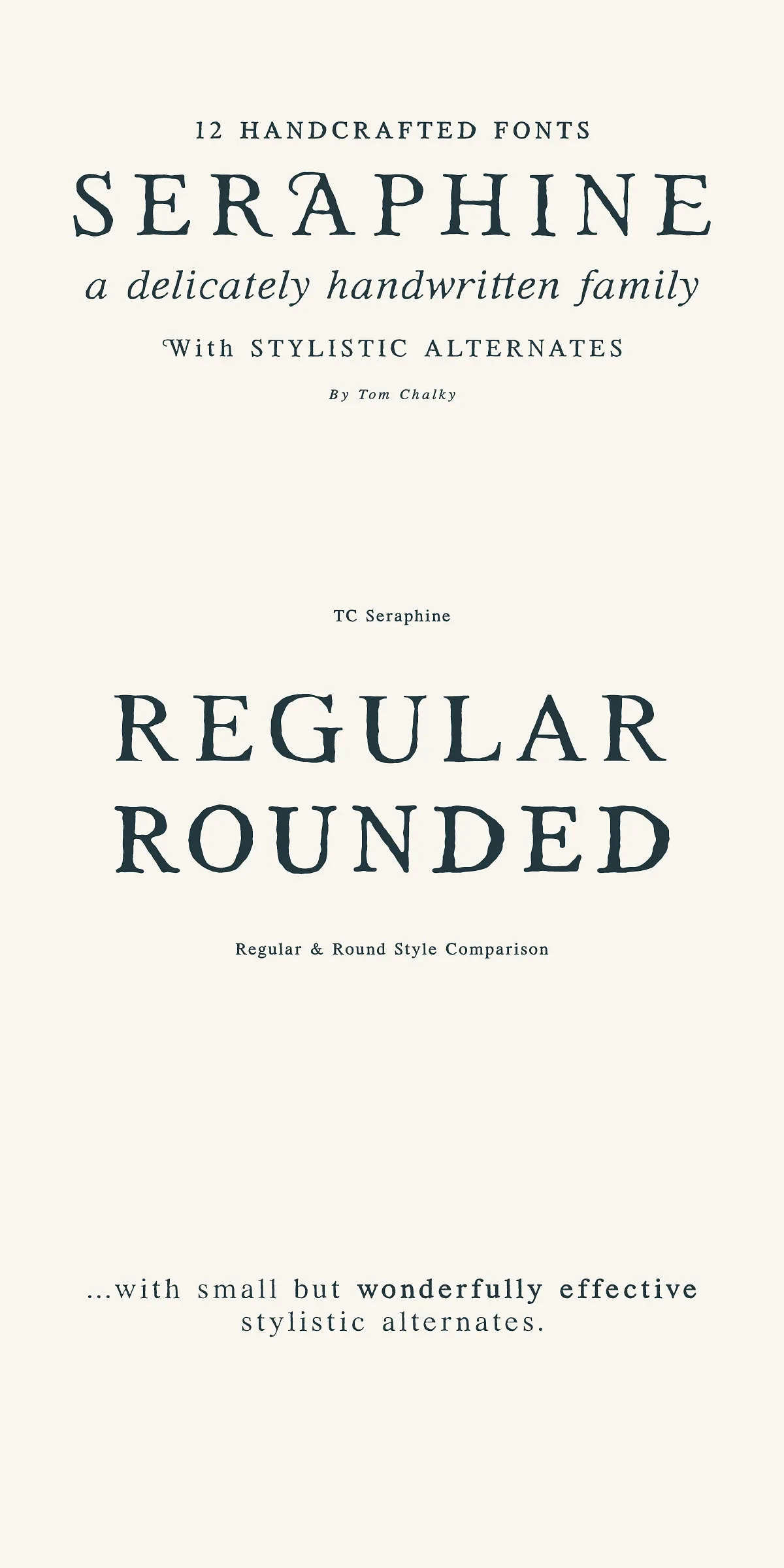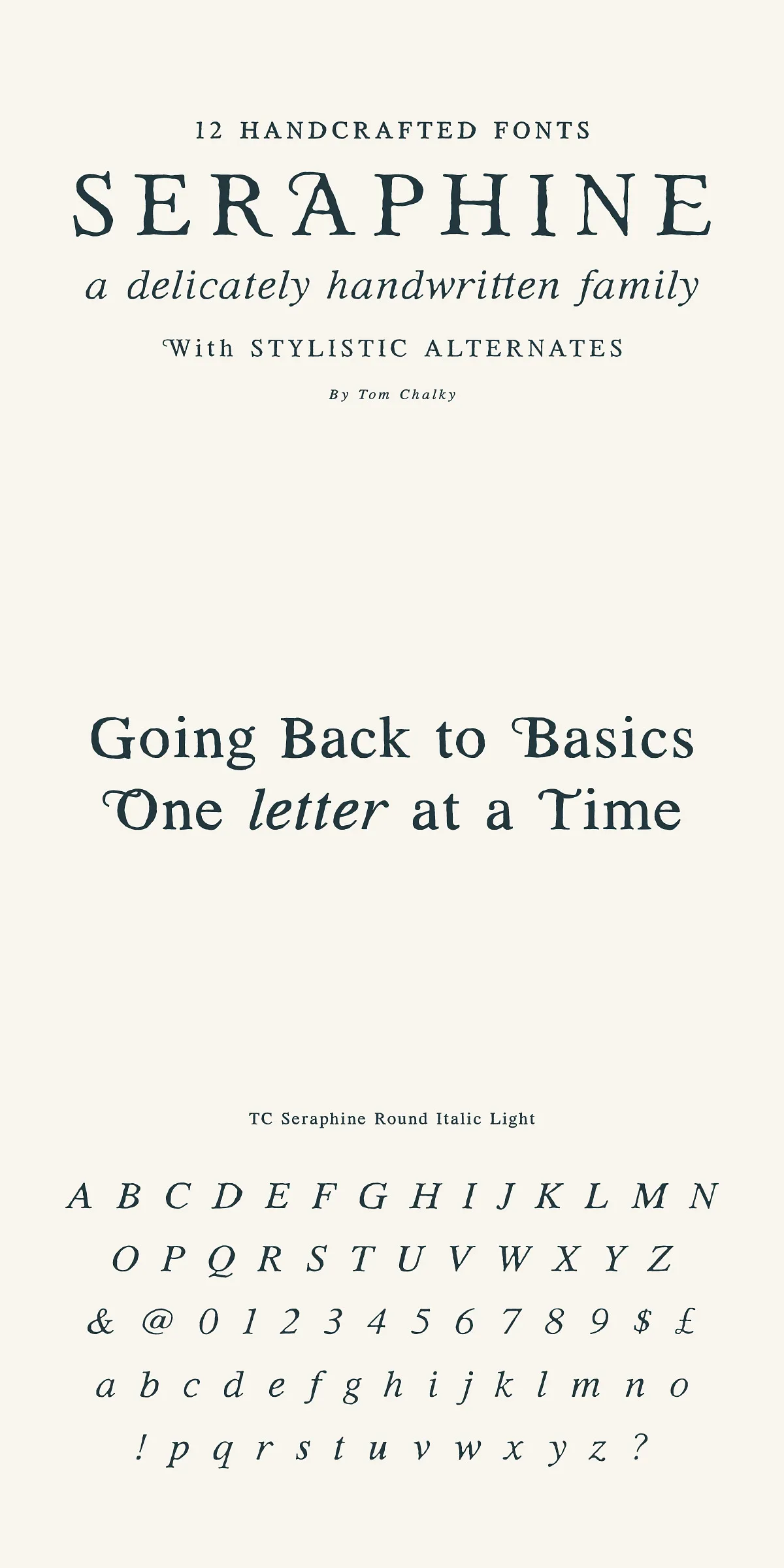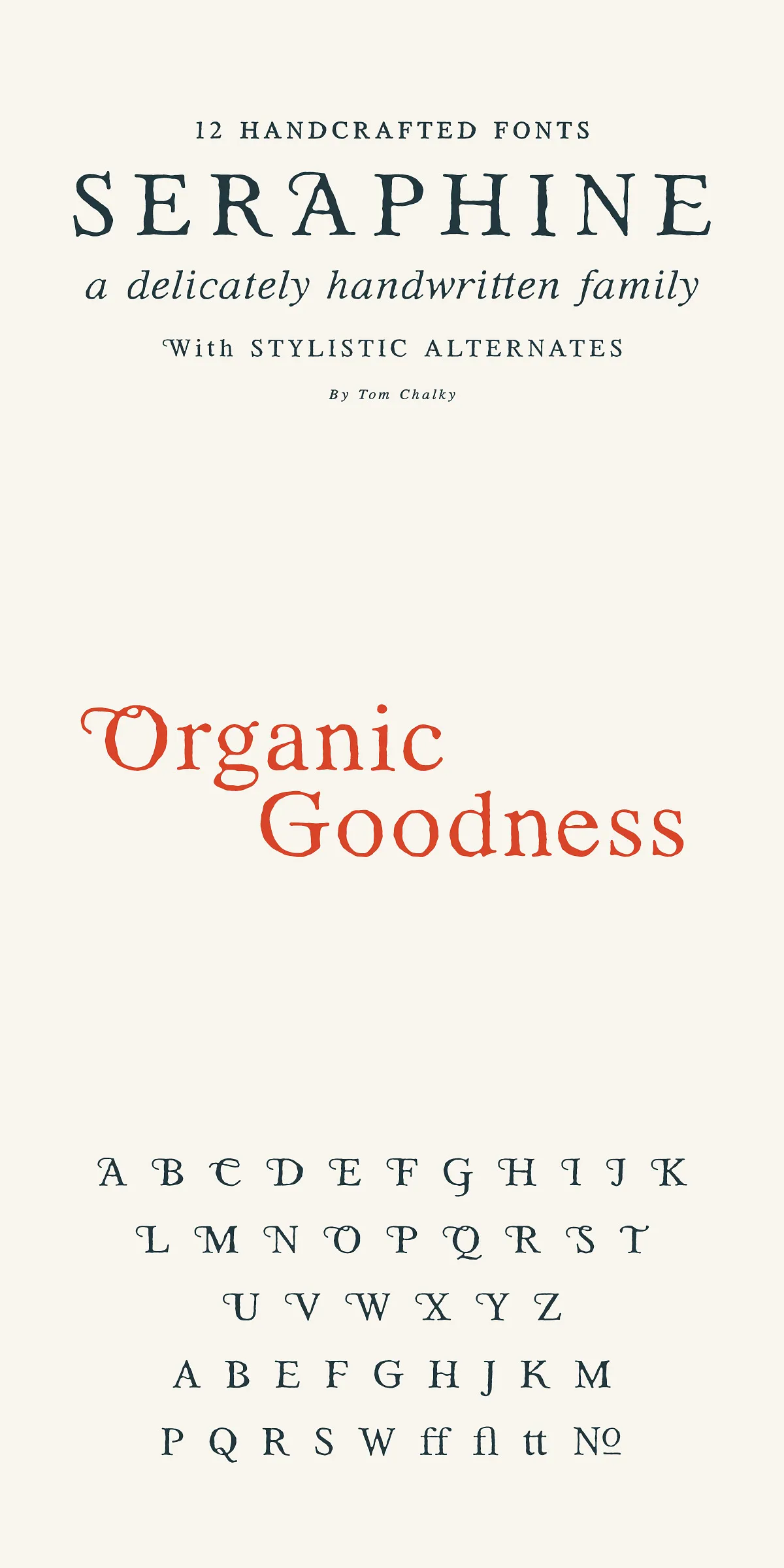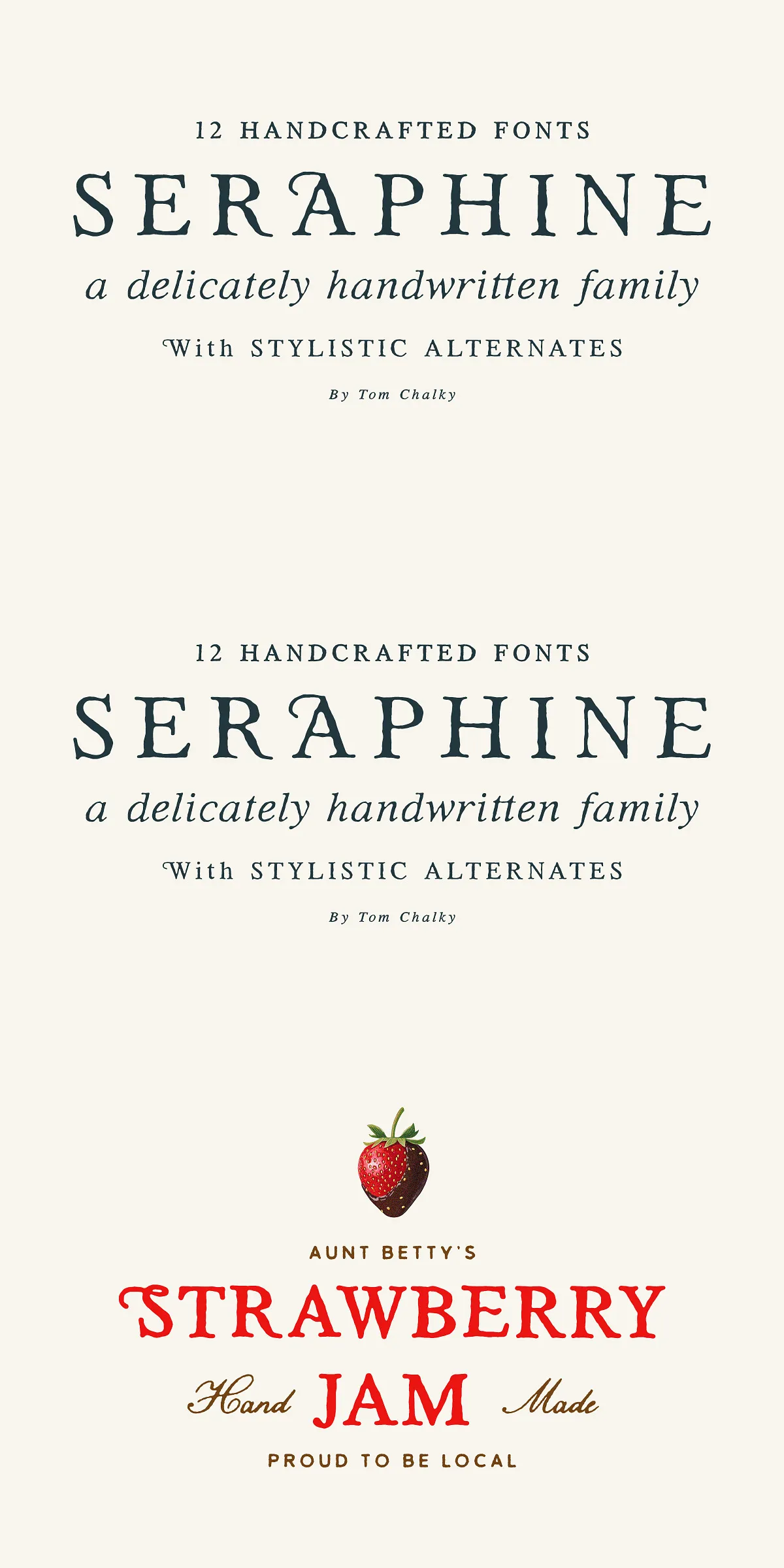
Introducing Seraphine, a beautifully crafted serif font family that blends classic typographic structure with a gentle, human touch. This 12-font powerhouse is engineered for creators who value both precision and personality in their typography. With a range of styles from delicate light weights to bold statement options, Seraphine delivers unmatched versatility across branding, editorial design, packaging, and digital experiences.
Why Seraphine Stands Out in a World of Digital Fonts
Seraphine isn’t just a font — it’s a statement of refined taste. Unlike mass-produced typefaces that feel mechanical, each character in Seraphine is sculpted with intentional imperfections that mimic the natural rhythm of hand-drawn lettering. This subtle organic flow gives your text a sense of warmth, authenticity, and emotional depth — a rare quality in modern digital typography.
Delicate, Yet Powerful: The Full Range of Styles
Seraphine comes in two distinct visual directions to suit your creative intent:
- Regular Style – Clean lines, minimal flair, and timeless structure ideal for formal branding, editorial copy, and professional layouts.
- Rounded Style – Soft curves and gentle contours create a more approachable, modern aesthetic, perfect for lifestyle brands, children’s products, and user-friendly interfaces.
Every variant is available in three distinct weights:
- Light – For delicate headlines, minimalist designs, and subtle hierarchy.
- Regular – The balanced middle ground, perfect for body text and balanced compositions.
- Bold – A commanding presence, ideal for impact-driven headlines and standout branding.
Plus, every weight includes True Italic Variants — not just skewed fonts, but meticulously designed italics with real stylistic continuity and visual harmony.
Design with Intention: Advanced Features for Professional Use
Seraphine goes beyond basic glyphs. It’s built with the needs of professional designers in mind, featuring a suite of OpenType enhancements that empower your creative control:
Subtle Stylistic Alternates – Where Detail Meets Design
With carefully crafted stylistic alternates, you can add quiet sophistication to your text without disrupting the flow. Replace standard glyphs with refined versions for a polished, high-end look that feels hand-tuned. Use these alternates sparingly to highlight key words or elevate the overall tone of your design.
For example:
- Replace standard ‘E’ with an ornate, hand-drawn variant for a luxury brand name.
- Swap the ampersand (&) for a flowing, connected version in editorial titles.
Designed for Global Relevance: Full Multilingual Support
Where to Use Seraphine: Real-World Design Applications
Seraphine adapts to countless creative scenarios — here’s how:
For Branding & Identity
Use Seraphine to craft elegant logos, business cards, and brand guidelines that feel personal and premium. Its balanced proportions and human-like flow create instant perception of craftsmanship and care.
For Editorial & Publishing
Perfect for magazines, newspapers, book covers, and online journalism. The light to bold range allows for clear typographic hierarchy, while the italic variants add dynamic emphasis.
For Packaging & Merchandise
Let Seraphine make your product labels, boxes, and tote bags feel handcrafted and exclusive. The rounded styles are especially effective for lifestyle and wellness products.
For Digital & Web Design
With WOFF/WOFF2 support, Serifine loads quickly and renders crisply on every screen — from mobile to desktop. Ideal for landing pages, newsletters, and content platforms that demand beauty and performance.
Bring Your Vision to Life with Seraphine
Seraphine is more than a font family — it’s a creative partner. Designed for those who value detail, authenticity, and emotional resonance in every letter, it transforms ordinary text into something unforgettable.
- Graphic designers crafting high-end branding and identity systems.
- Editors and publishers seeking timeless, elegant typography.
- Art directors working on editorial and lifestyle campaigns.
- Web developers and UX designers wanting beautifully functional fonts.
- Merchandise creators building premium packaging and stationery lines.